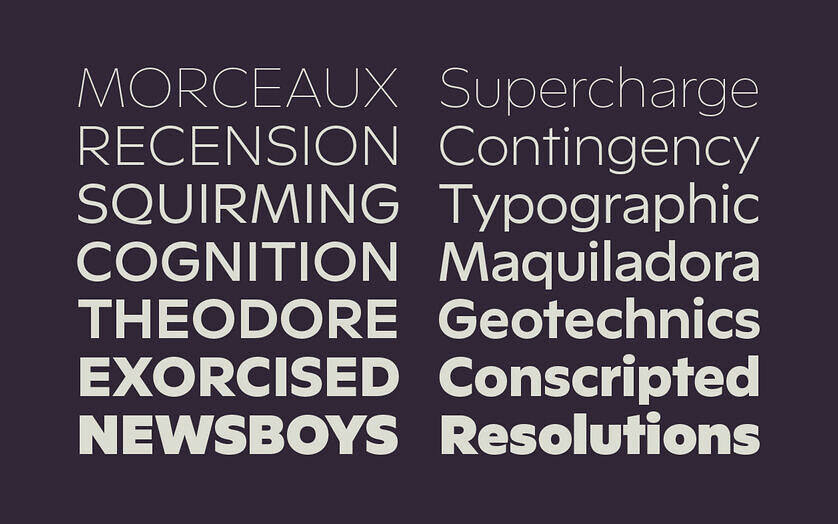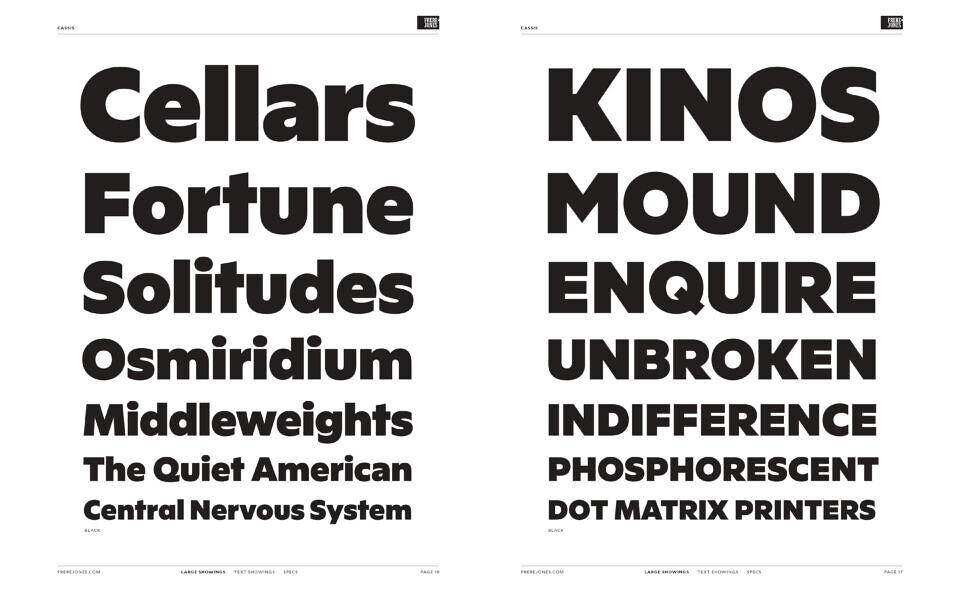
Cassis is a generous, soulful sansserif with more interest in personality than perfection. Informed by early- through midcentury lettering and signpainting from Belgium, Switzerland, and the United States, Cassis draws from history and geometry without being limited by either.
It is designed to project affable confidence and offer compelling density at larger sizes; it presents swelling curves, reaching terminals, and a teetering balance of stroke weights, which infuse its geometric underpinnings with plenty of flavor. A powerful voice for branding, identity, and titling work, Cassis is presented in seven weights from a spare Thin through a forceful Black.